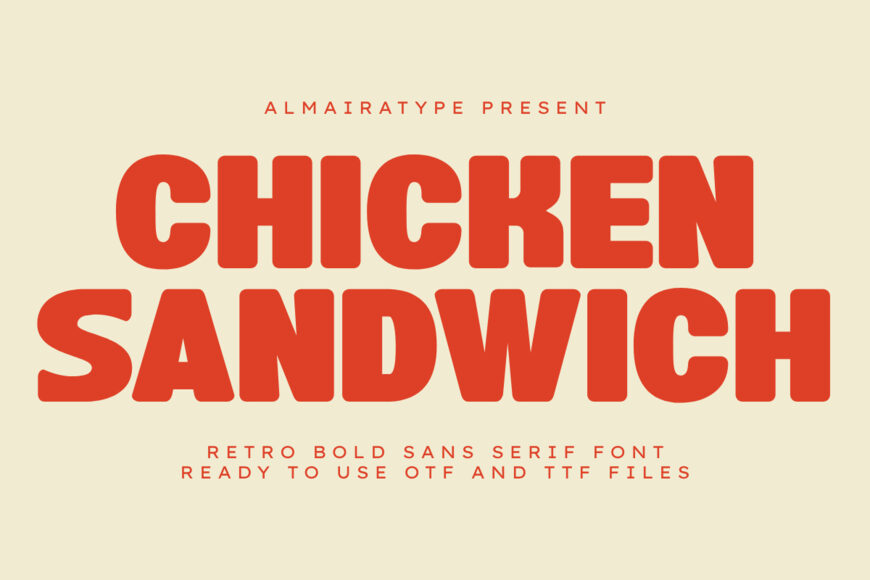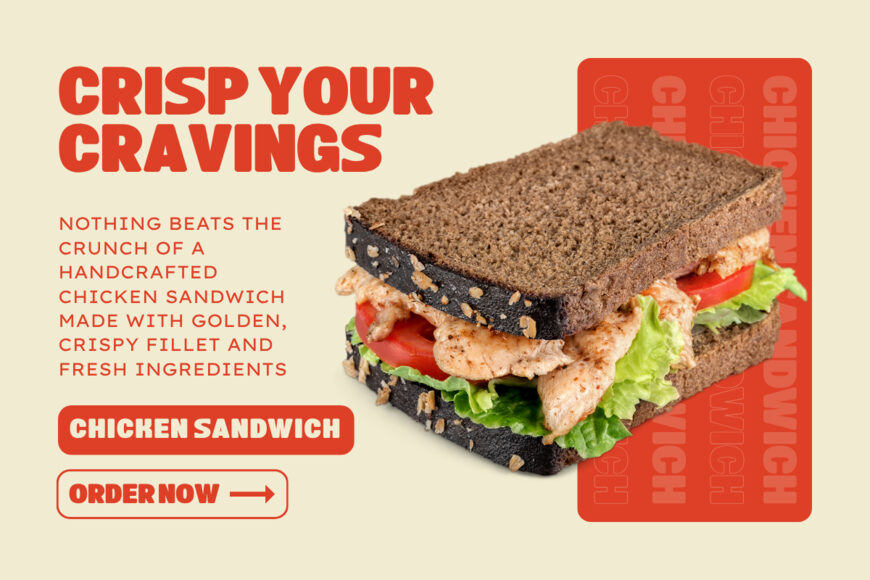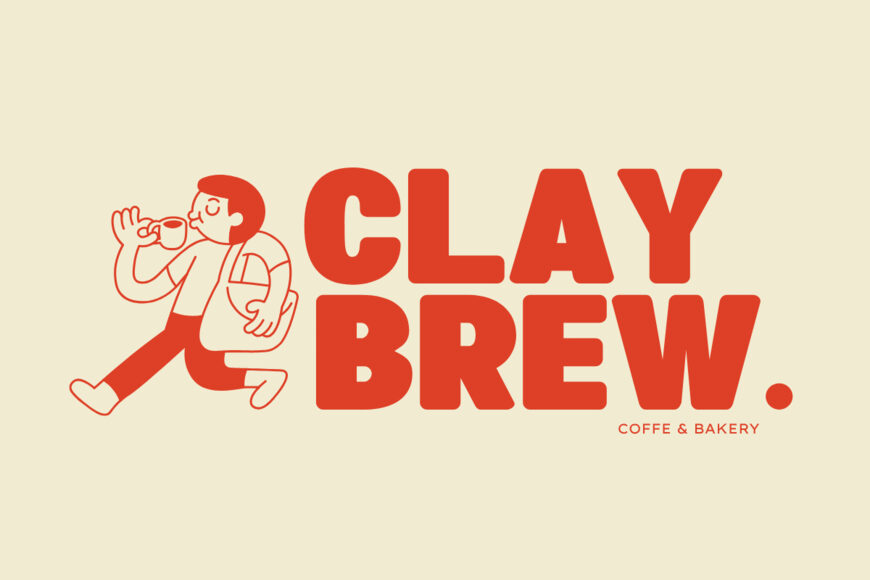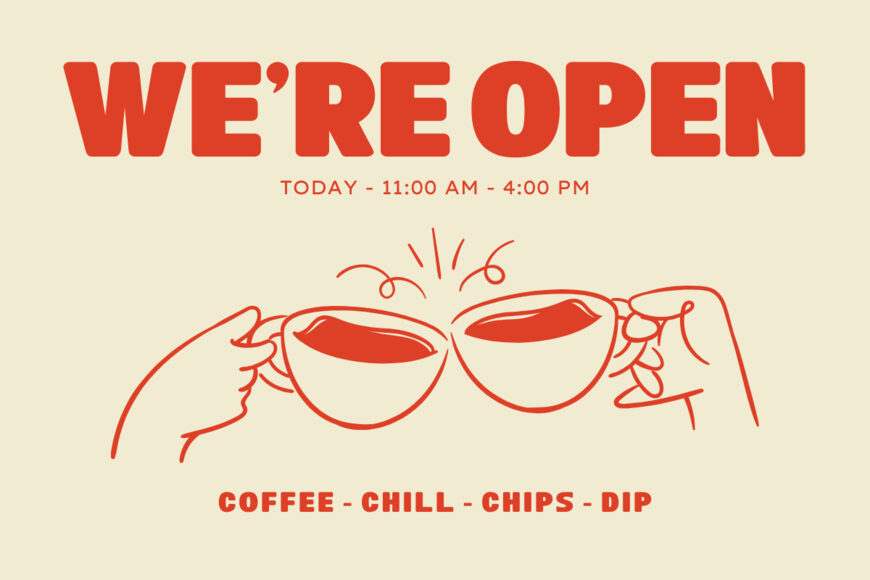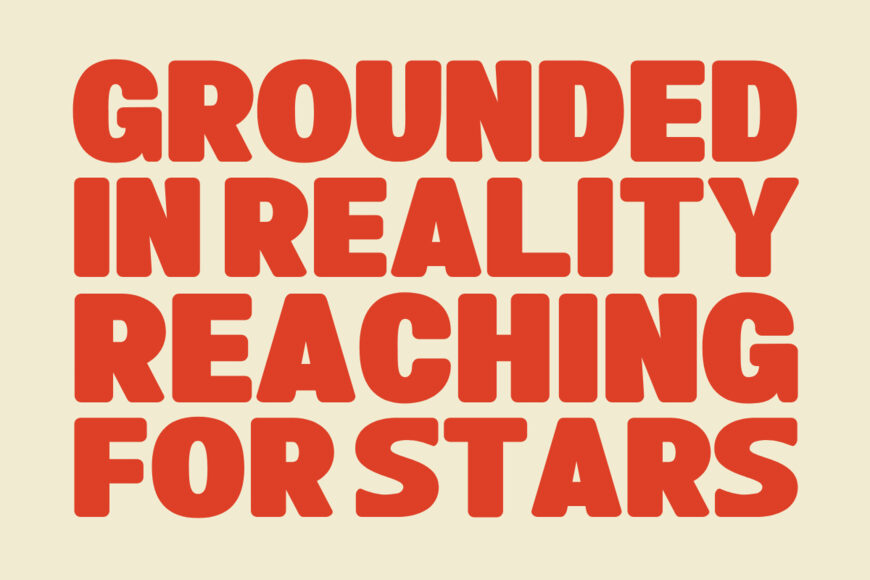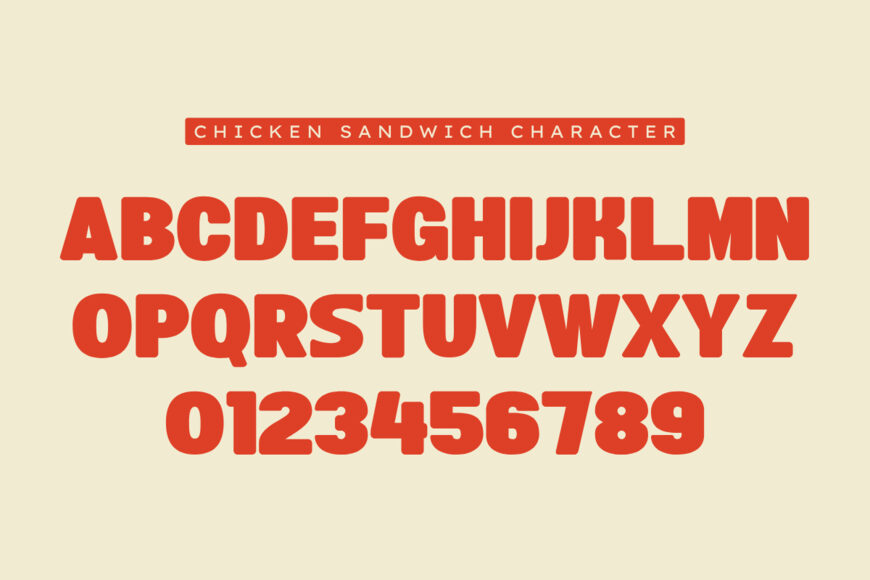
Chicken Sandwich Font
Chicken Sandwich is a bold retro sans serif font meticulously designed to bring a delightful vintage warmth and high-impact aesthetic to your modern creative projects. Featuring a robust, thick structural anatomy and friendly playful contours, this typeface beautifully bridges the gap between classic 70s nostalgia and contemporary commercial design trends.